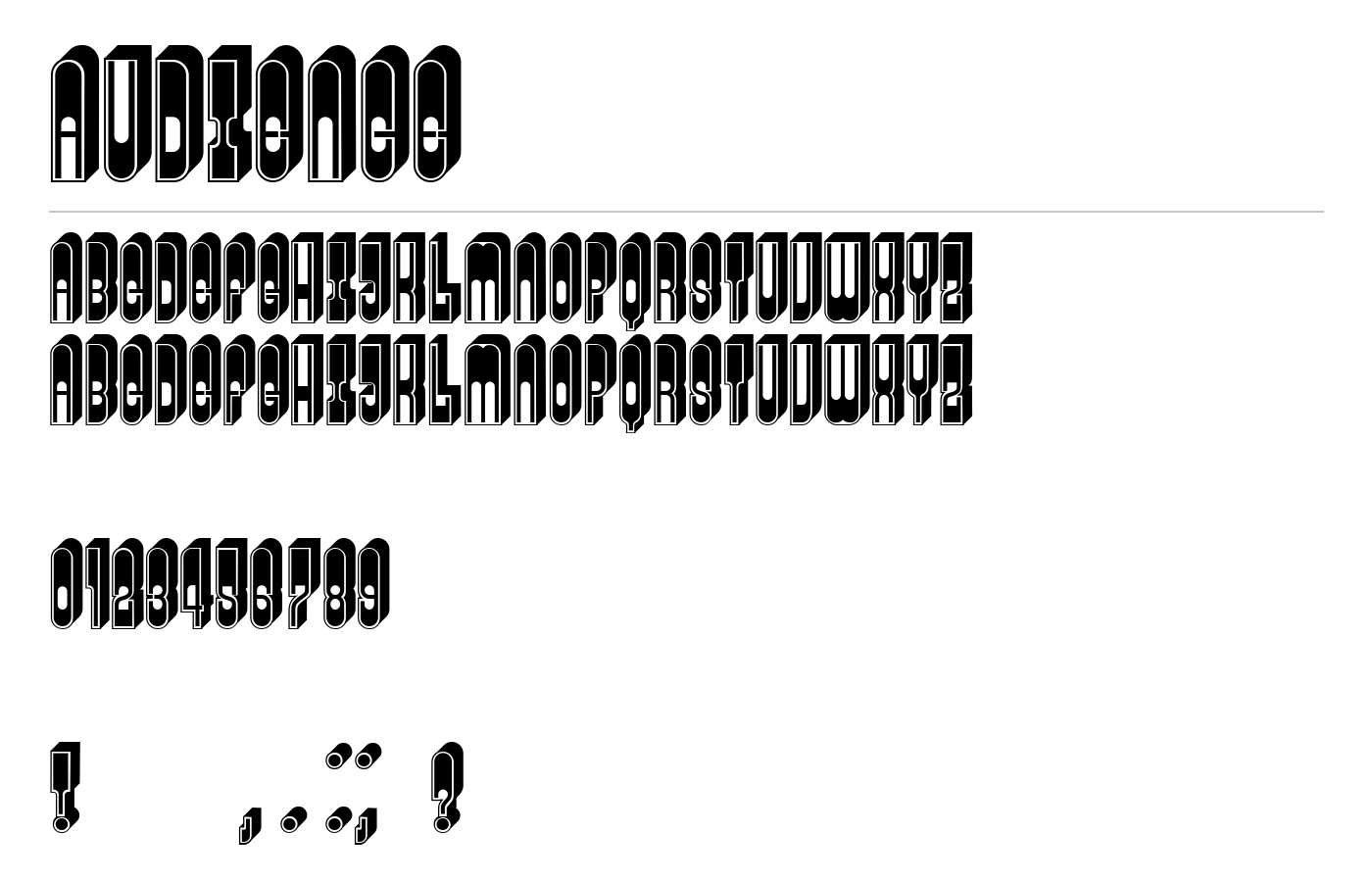
Audience Font is a bold, condensed display typeface with a strong geometric and retro-futuristic vibe. Its high contrast between thick black fills and white outlines, combined with unique shapes and stylized letterforms, make it perfect for eye-catching headlines, posters, and branding that demand a distinct, modern yet vintage-inspired personality. This font works best in decorative and creative contexts where its dramatic style can stand out and draw attention.
Audience Font
About Audience Font